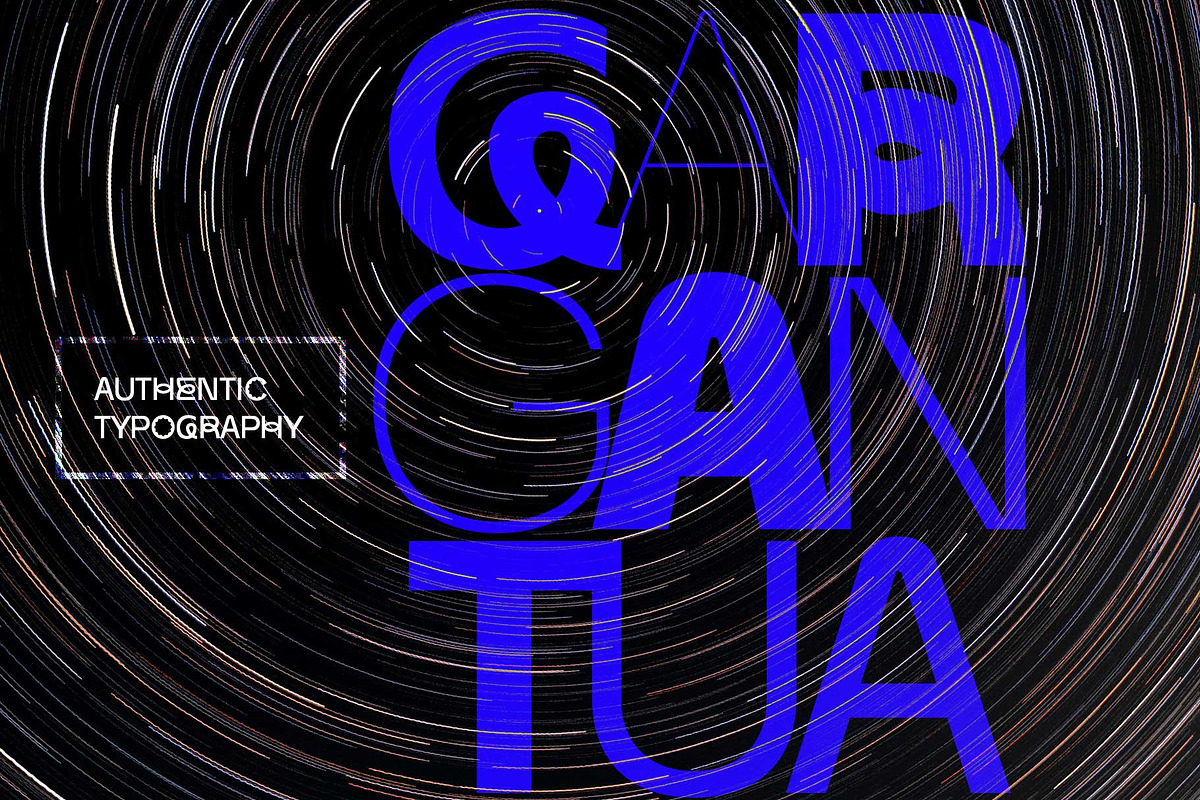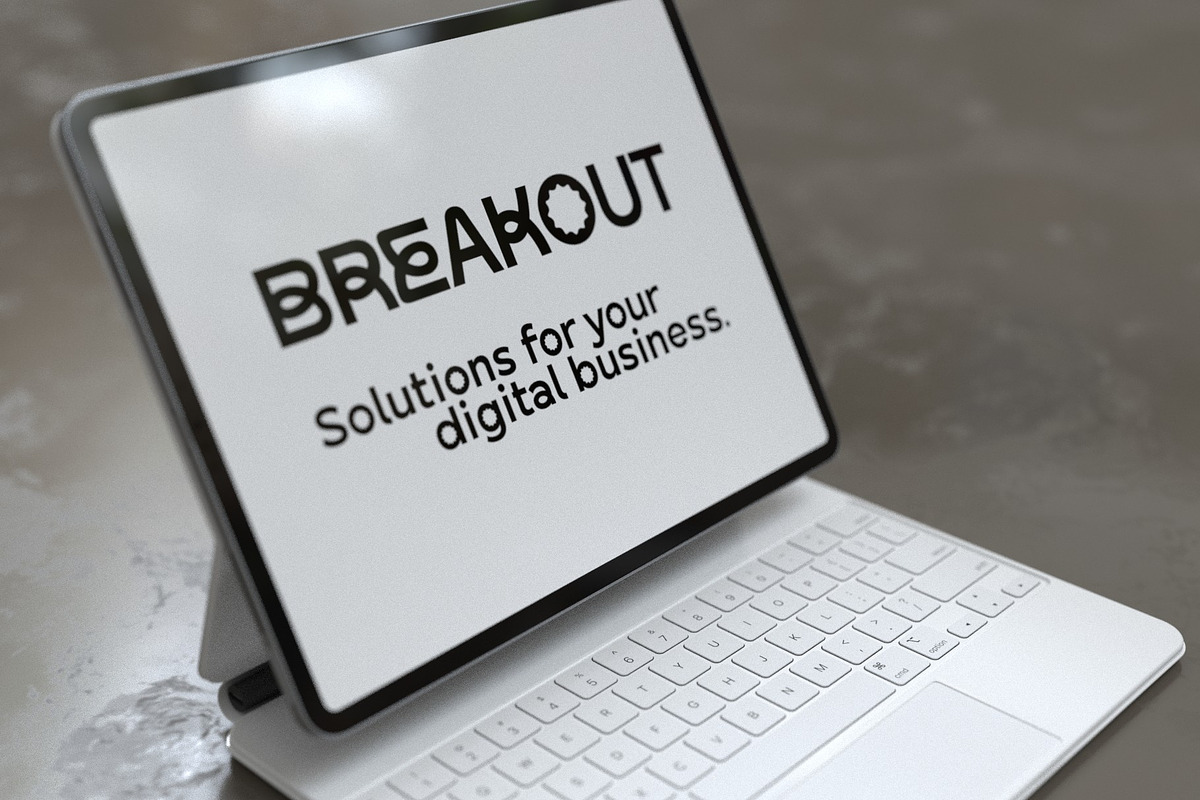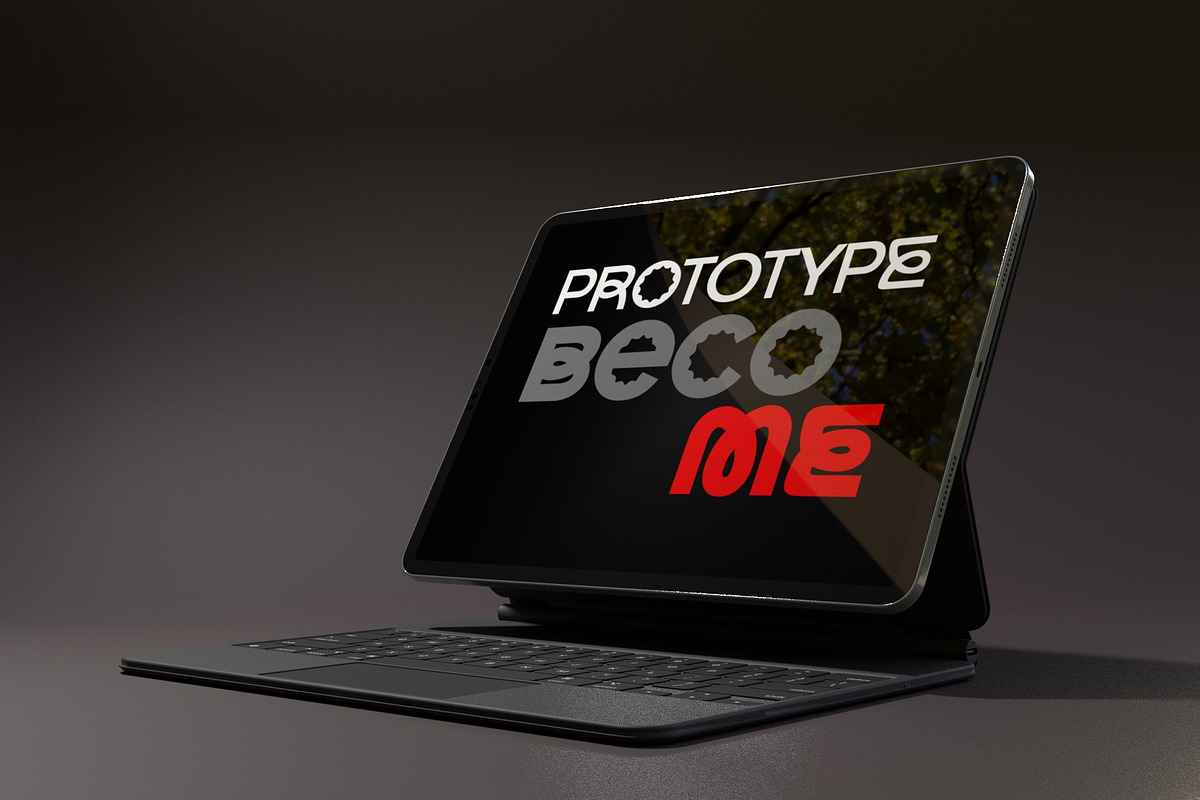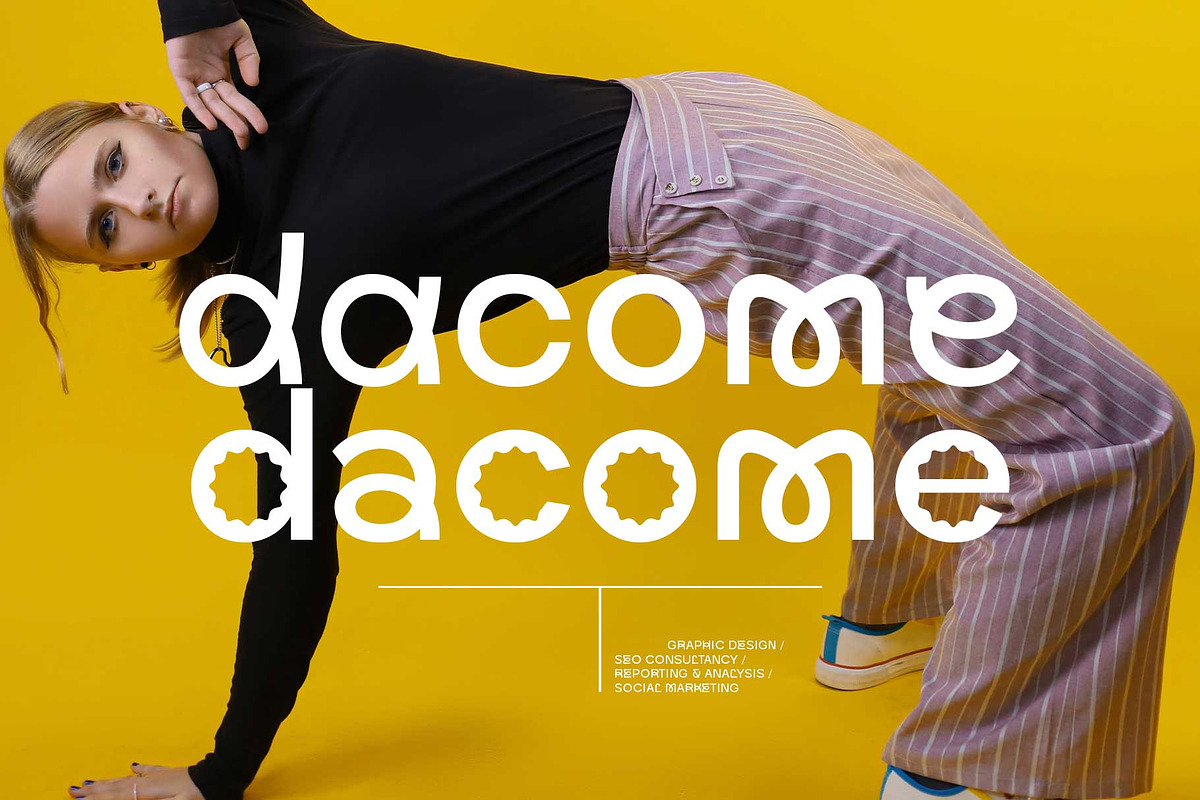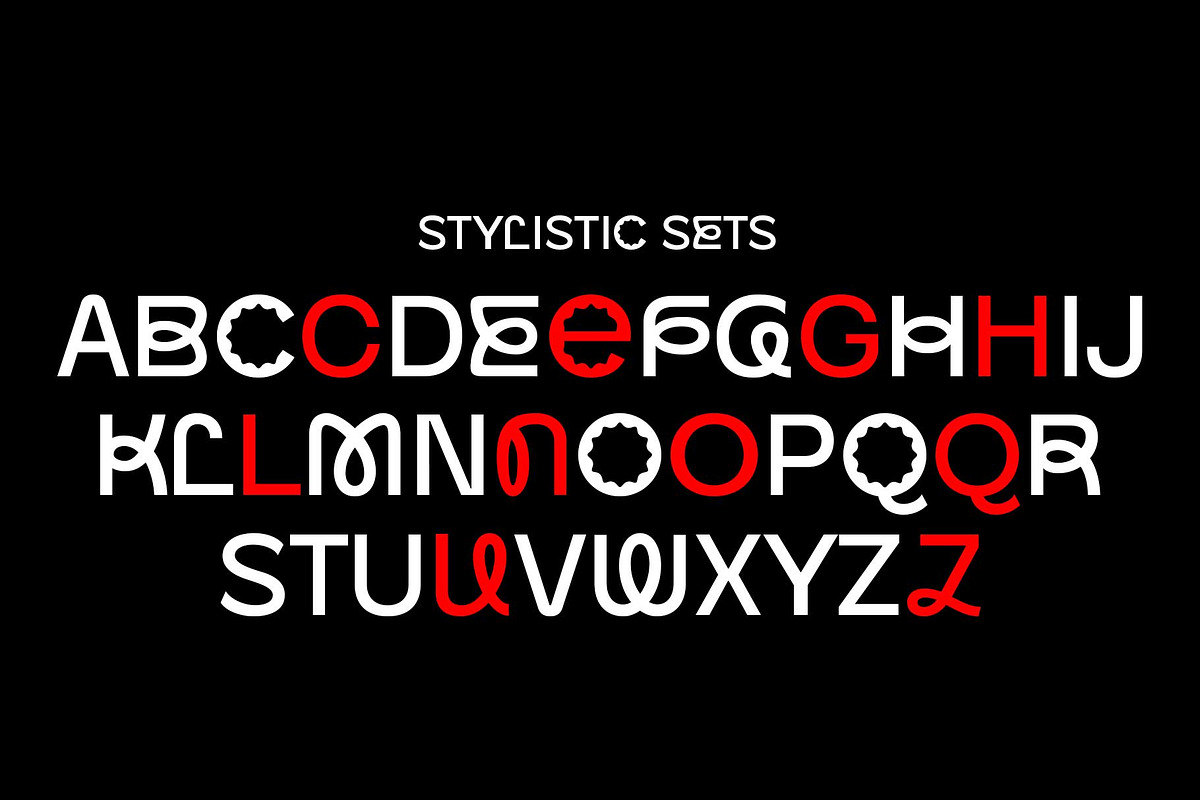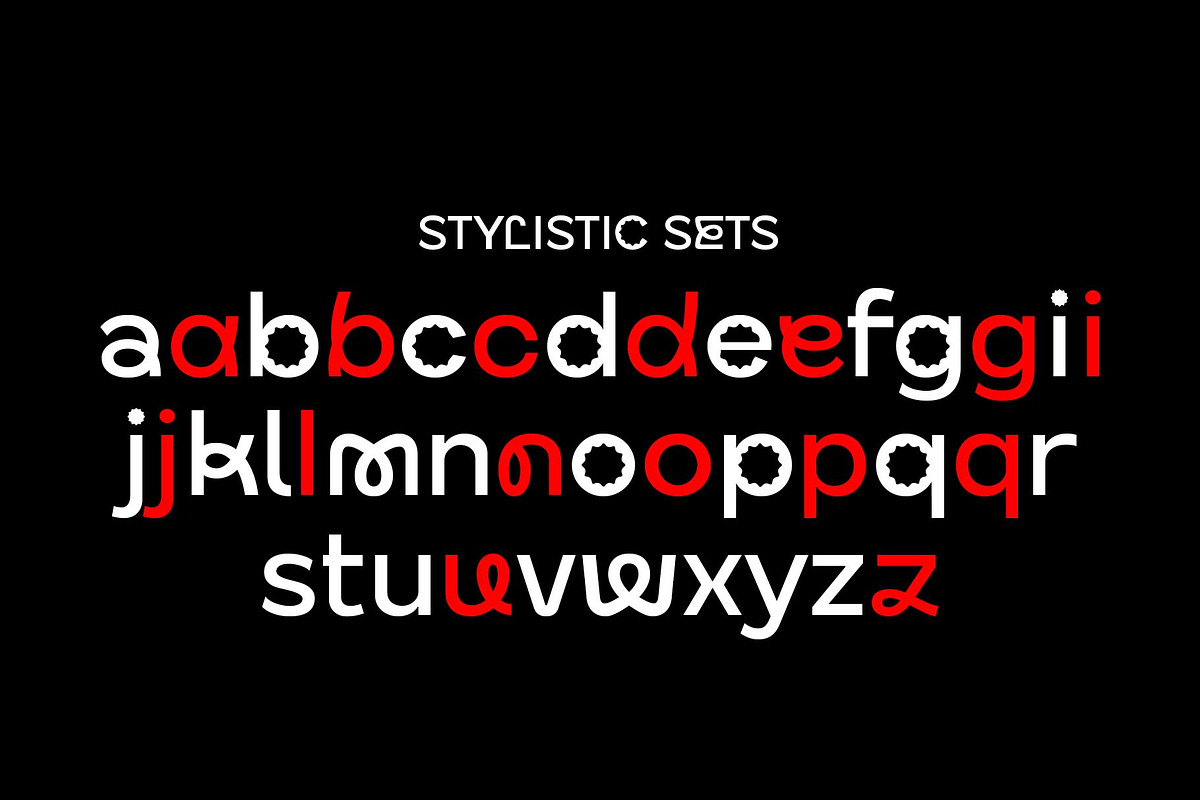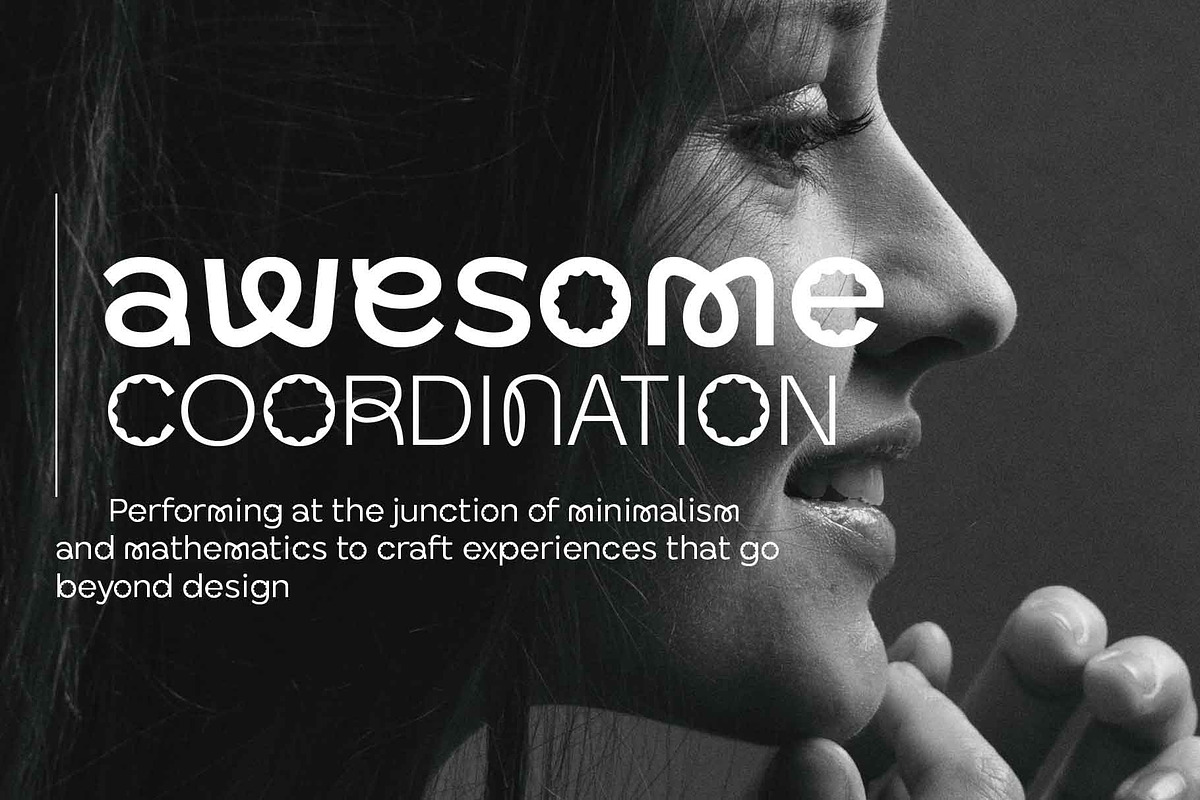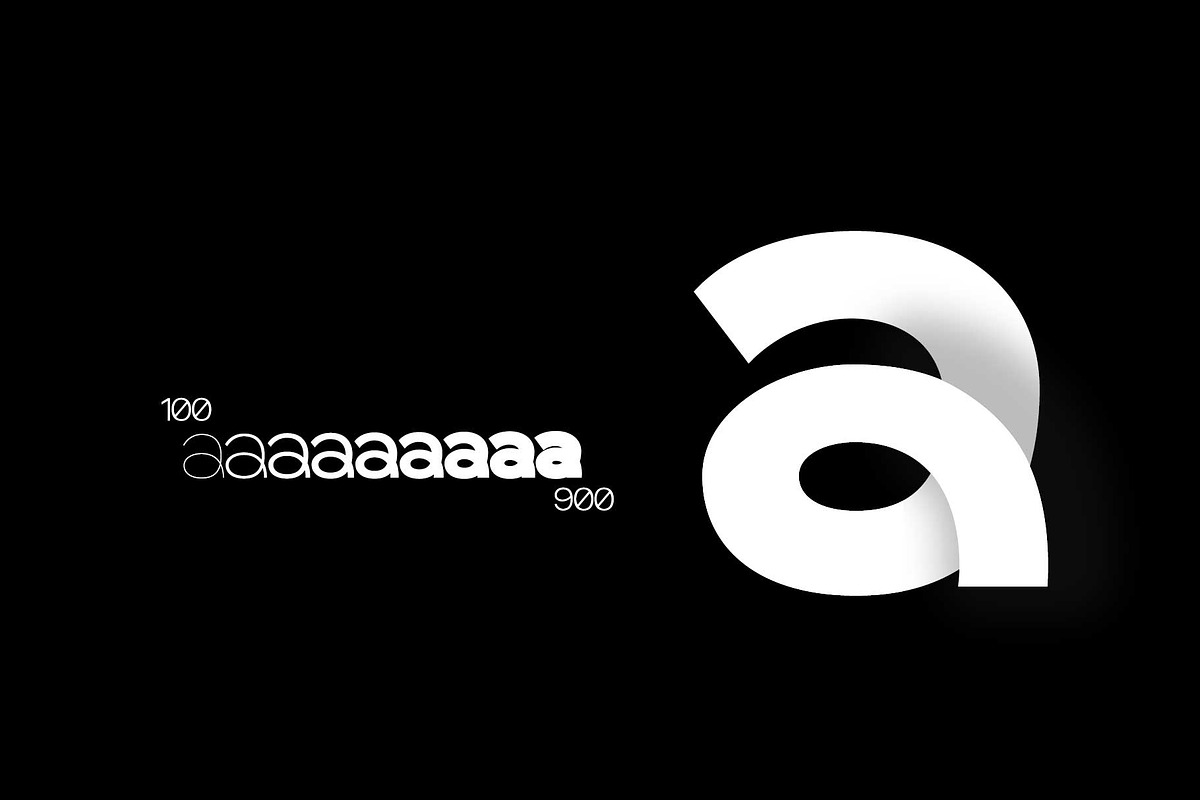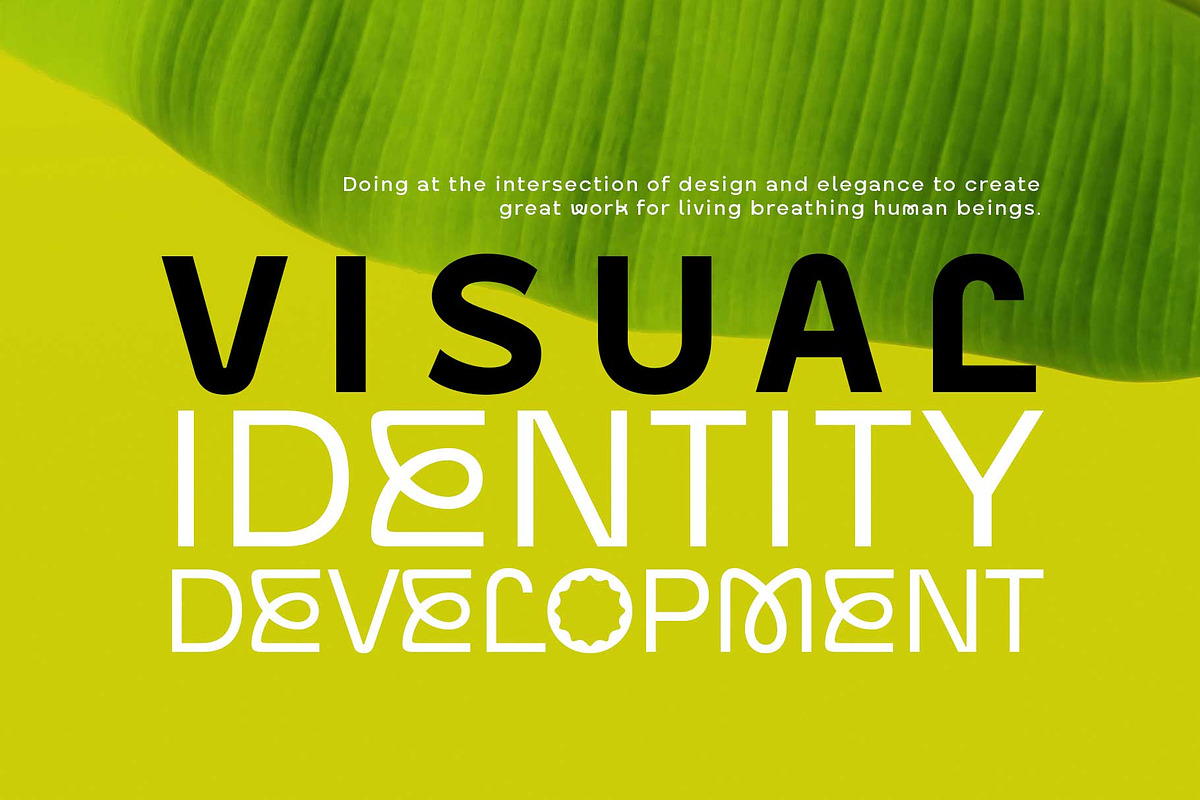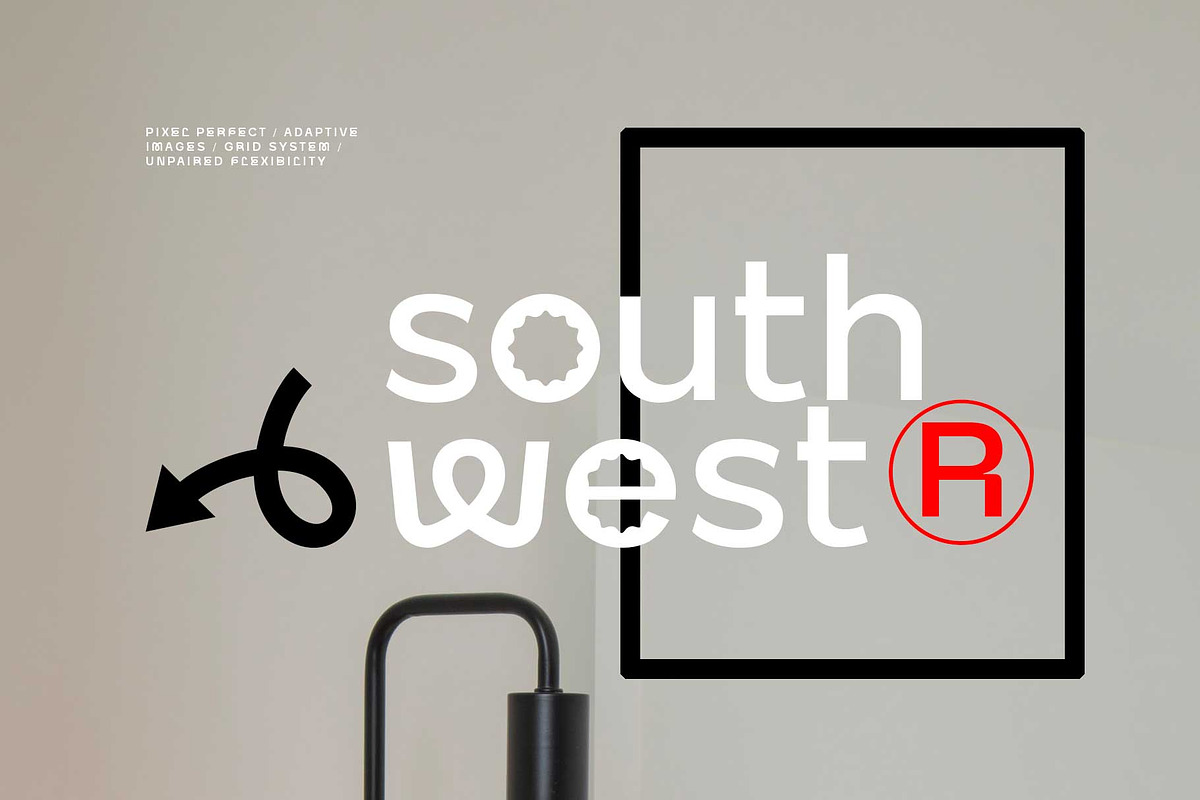
Become Display Font Family
BECOME display Font Family
It tries to display playful ideas in well-balanced styles. Hello, designers. We always seek new innovations, but run into the world of forms and frames, presently.
This font family presupposes pleasant imagination and provocation, but controls the change of various styles so as not to lose a sense of balance. B, E, M and W glyphs started from the same skeleton, but the detailed correction work for interpolation transformation was all applied differently.
It is designed to be well suited to any layout while providing a unique stimulus. It can be a great display for all ages, from kids to seniors, and covers publishing, web, app and branding design areas.
- 9weights. 18styles
- 672 Glyphs
OpenType Features
- Stylistic Sets (ss01,ss02)
- ss01 : C,E,G,H,L,N,O,Q,U,Z(Uppercases), a,b,c,d,e,g,i,j,l,,n,o,p,q,u,z(lowercases)
- ss02 : ↑↗→↘↓↙←↖↔↕
- ligatures : fi,fl
- oldstyle figures
- tabular
- Western Europe, Central/Eastern Europe, Baltic, Turkish, Romanian
- Basic Cyrillic
- Ukraine